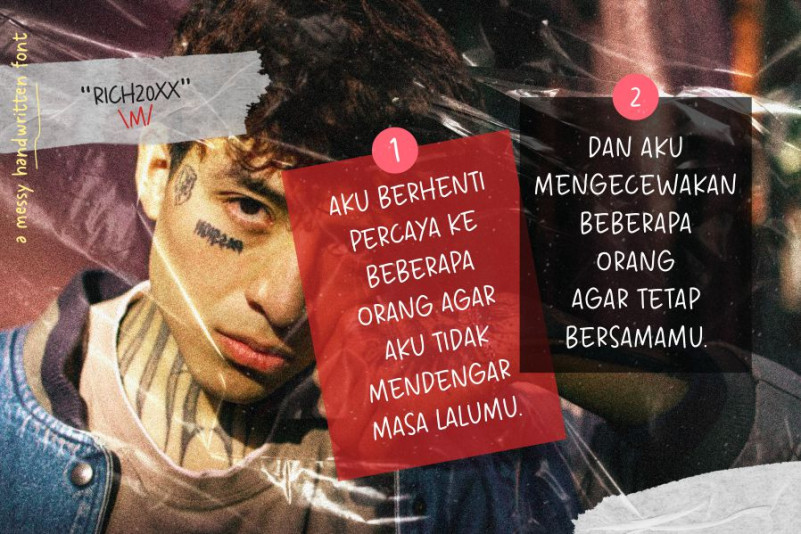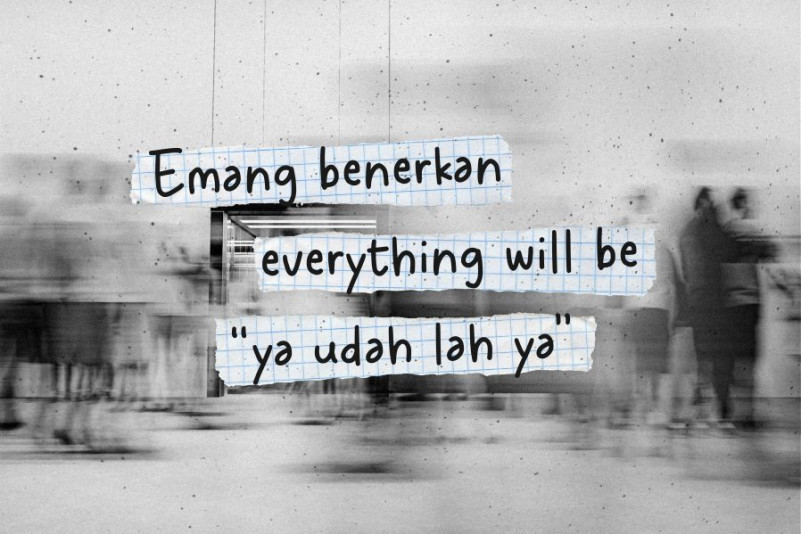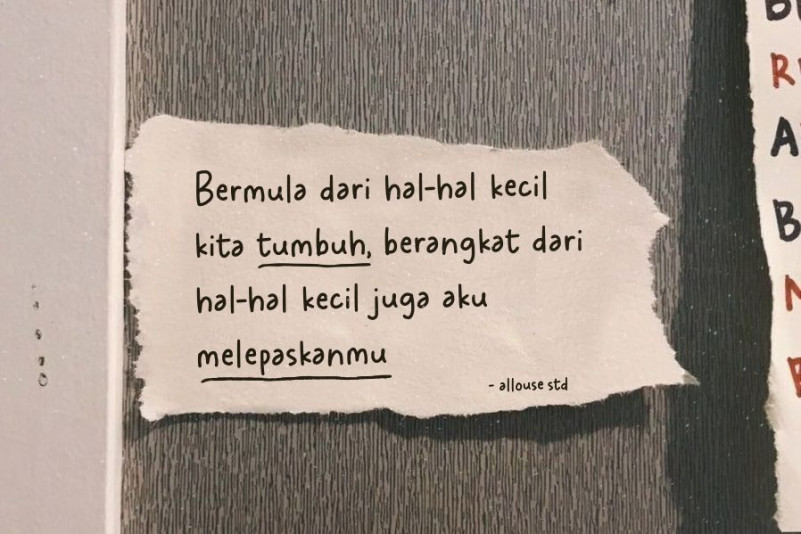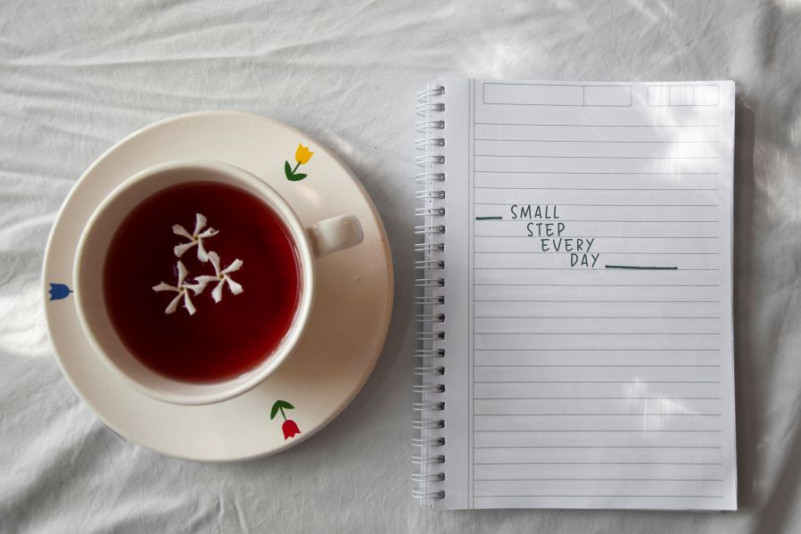
Sampun Hopeless
Sampun Hopeless Display FontSampun Hopeless preview image 2Sampun Hopeless preview image 3Sampun Hopeless preview image 4Sampun Hopeless preview image 5
Sampun Hopeless Display Font is a Messy Handwritten Font. Sampun Hopeless is perfect for product packaging, branding project, megazine, social media, wedding, or just used to express words above the background.